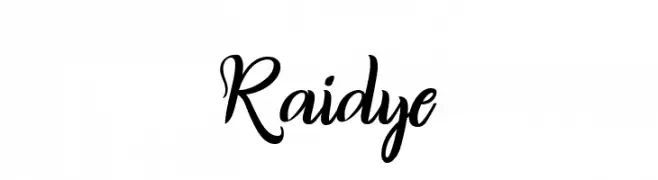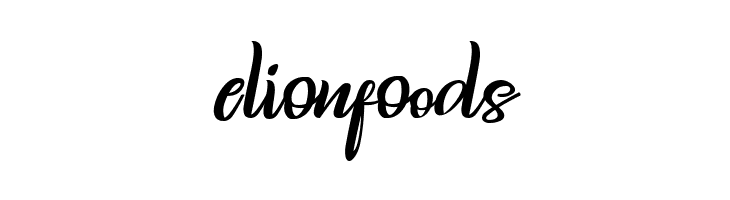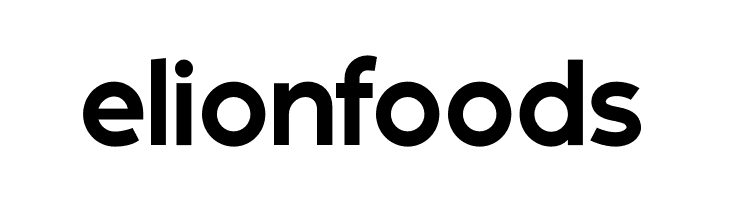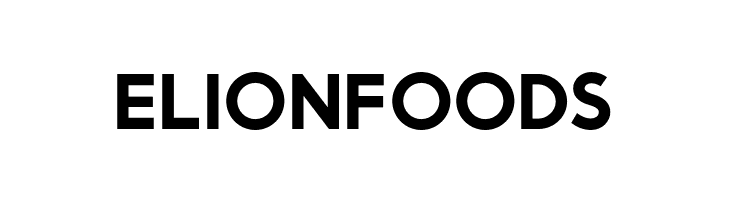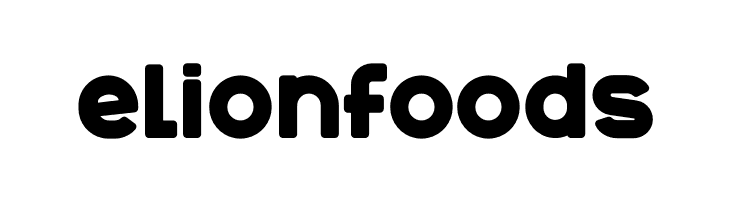
A bold, outlined geometric font with a modern and striking appearance.
A dynamic and elegant script font with fluid, cursive letterforms.
A modern, light, semi-condensed sans-serif font with clean lines and balanced proportions.
A bold, italicized font with a modern and sleek appearance.
A bold, modern sans-serif font with geometric precision and clarity.
A bold, modern font with clean lines and geometric structure.
A fluid, elegant handwritten font with a natural, flowing style.
A bold, elegant font with strong strokes and a commanding presence.
A bold, modern sans-serif font with geometric lines and consistent stroke width.
A bold, modern font with rounded edges and a geometric influence.